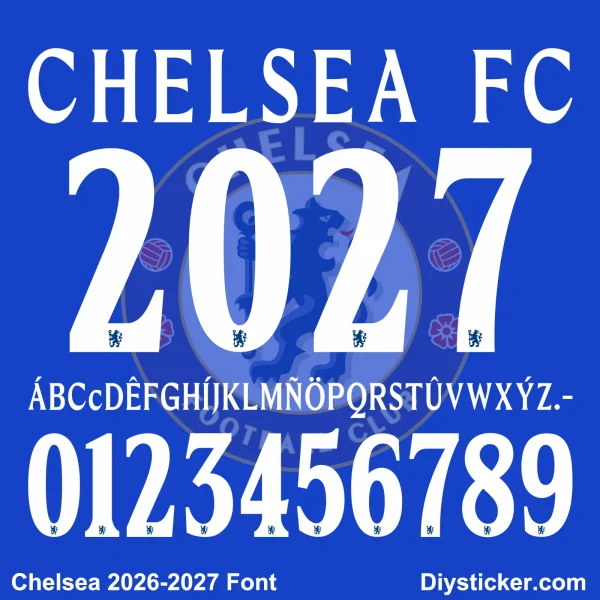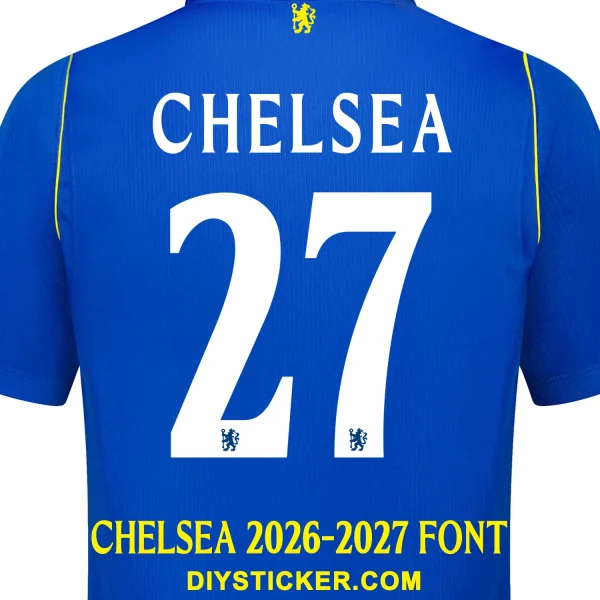
Replicate the iconic cup match-day look of the Blues! This premium digital file pack features the elegant Chelsea 2026-2027 Font and Numbers rendered in crisp white, expertly crafted with classic flared serifs and embedded lion club crest details for authentic kit customization and sports graphic design.
Complete uppercase alphabet, squad numbers, and integrated club emblems.
Elevate Your Kit Customization with the Chelsea 2026-2027 Font
Upgrade your custom apparel catalog with the absolute latest look from Stamford Bridge! This digital typography product delivers the full Chelsea 2026-2027 font style designed for the upcoming football campaign. Striking a beautiful balance between traditional athletic elegance and sharp geometric serif styling, this font face features classic, elongated proportions accented by flared terminal feet and the official Chelsea lion rampant crest nested precisely at the bottom of each numeric glyph.
Chelsea Font 2026/2027 Comprehensive Character Mapping
A-Z Uppercase Alphabet: High-contrast serif letterforms built for clear pitch legibility and elegant tracking on official jersey nameplates.
0-9 Sharp Serif Numbers: Slim, dramatic numeric designs showcasing clean solid structures and pre-embedded lion crest details.
Special Accents & Diacritics: Complete set of punctuation marks and international accents (
Á,Â,Ç,É,Ñ,Ö,Ý, etc.) to accurately recreate names for international star players.